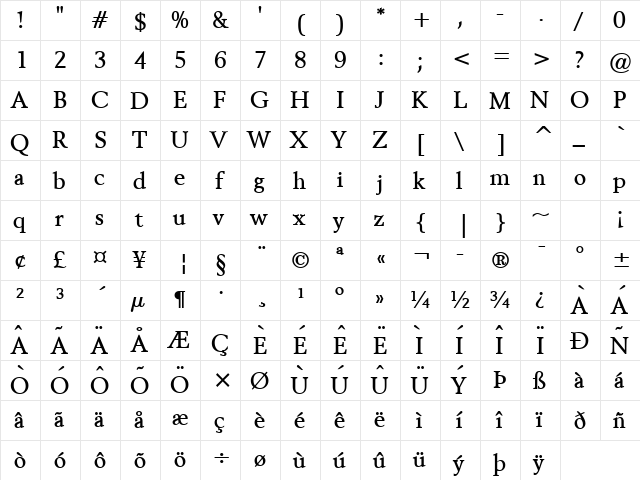
Revive 8 Bold Font Preview
Revive 8 Bold
Revive 8 Bold Font Details
Design Context for Revive 8 Typeface
Revive 8 is a composed and adaptable typeface that performs quietly and consistently across a wide range of design contexts. Its bold stroke weight gives it real presence on the page.